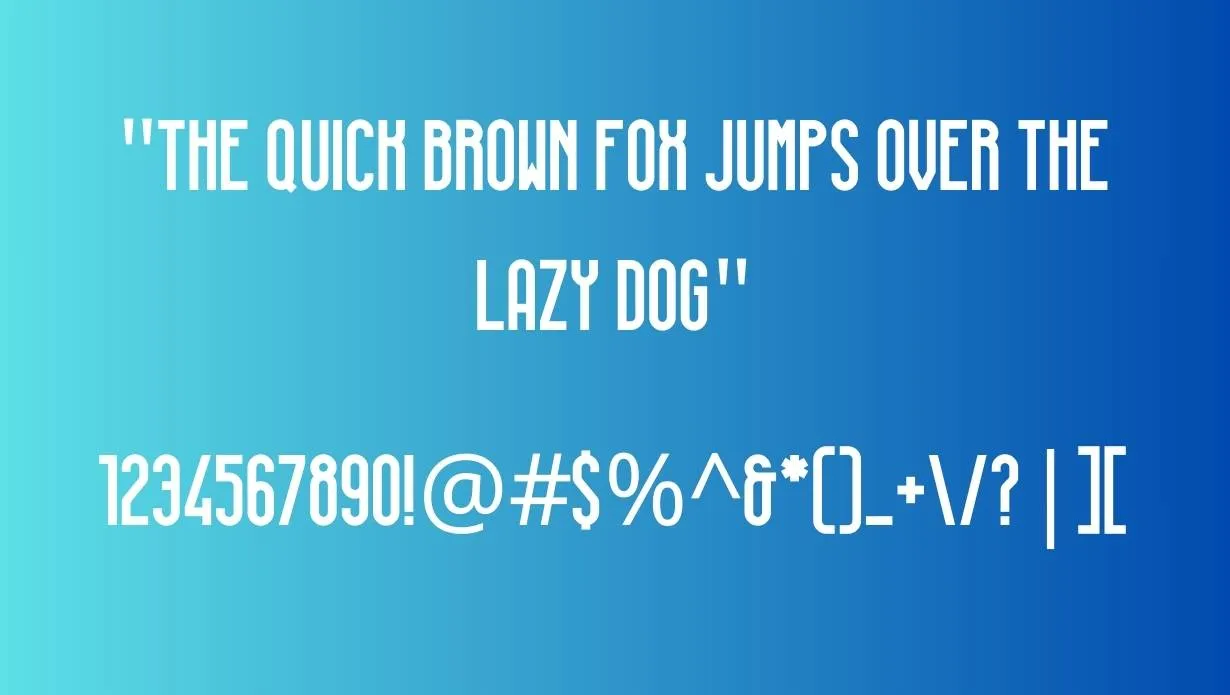
Liquid Font is a unique and eye-catching typeface known for its distinctive design. It’s often used in creative advertising, branding, and headline text where designers want to create a memorable visual impact.
| Name | Liquid Font |
| Designer | Unknown |